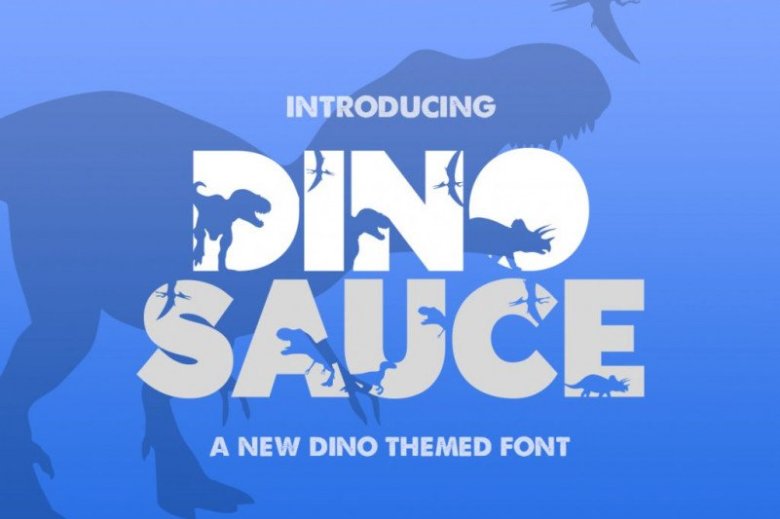
Dinosauce Typeface
Hello world..!! This is a new dino themed font, this is a creative yet simple sans serif typeface that looks stunning in every context. Introducing Dinosauce Font! Dinosauce designed and shared by Salt & Pepper Designs. Open the door, get on the floor, everybody walk the dinosaur! Ok, maybe not, but at least use this rawrsome (sorry) new font in your designs! Full of your fave prehistoric creatures and perfect for kids clothes and invites! Enjoy!